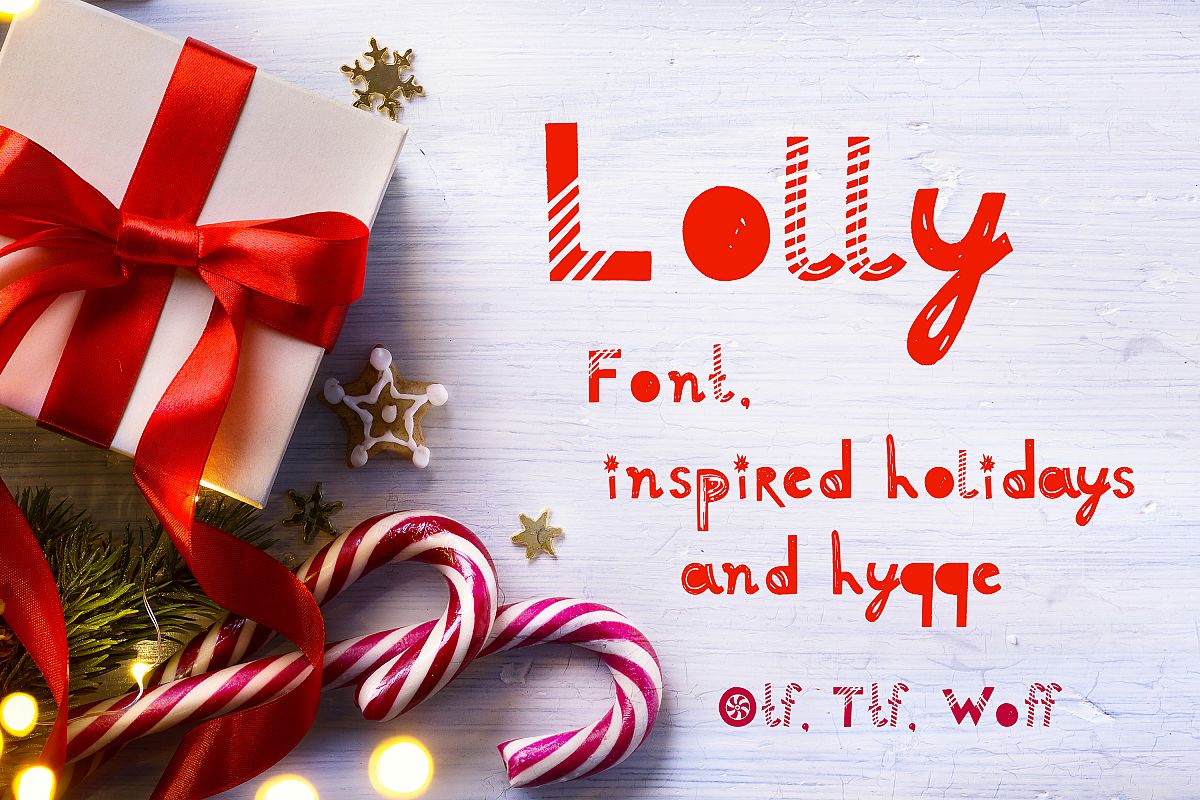
Lolly font
I'm super-pleased to introduce you my first font Lolly, inspired by traditional holidays stripes lollipops.
Lollipops font would be perfect for greeting cards, posters, quotes and t-shirts design.